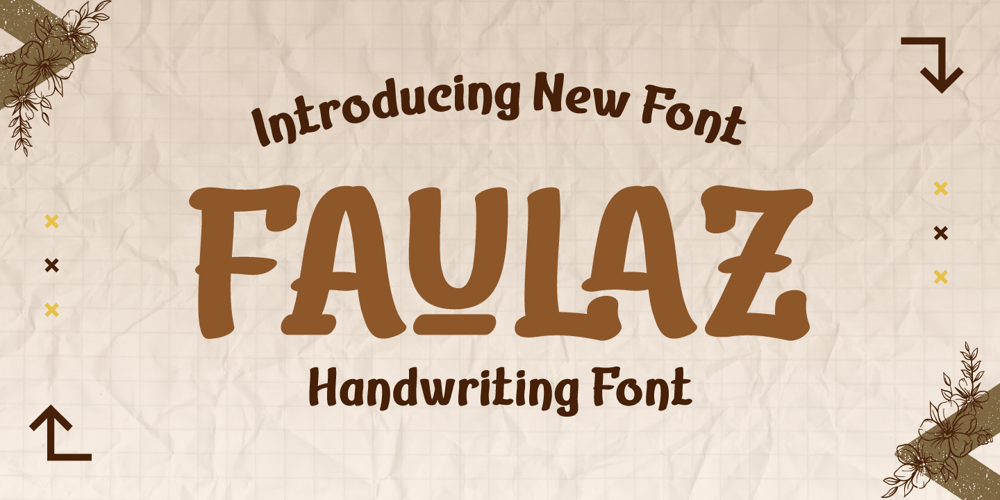
Faulaz Font Family was designed by Rozikan and published by Twinletter. Faulaz contains 1 styles and family package options. Introducing “FAULAZ Font” – Where Handcrafted Elegance Meets Modern Design.FAULAZ Font is your passport to infuse a personal and distinctive touch into your creative projects. This font seamlessly blends the warmth of handwritten text with a contemporary aesthetic.What’s Included : File font All glyphs Iso Latin 1 Alternate, Ligature Simple installations PUA Encoded Characters – Fully accessible without additional design software. Fonts include Multilingual support